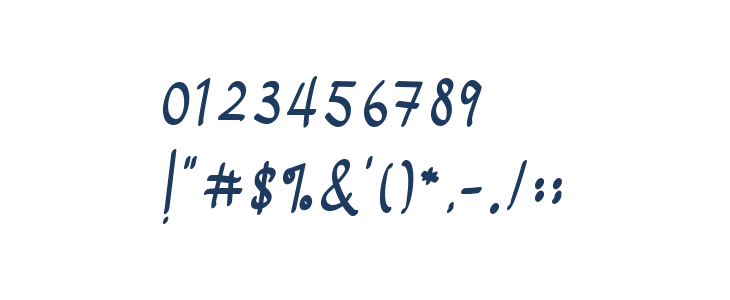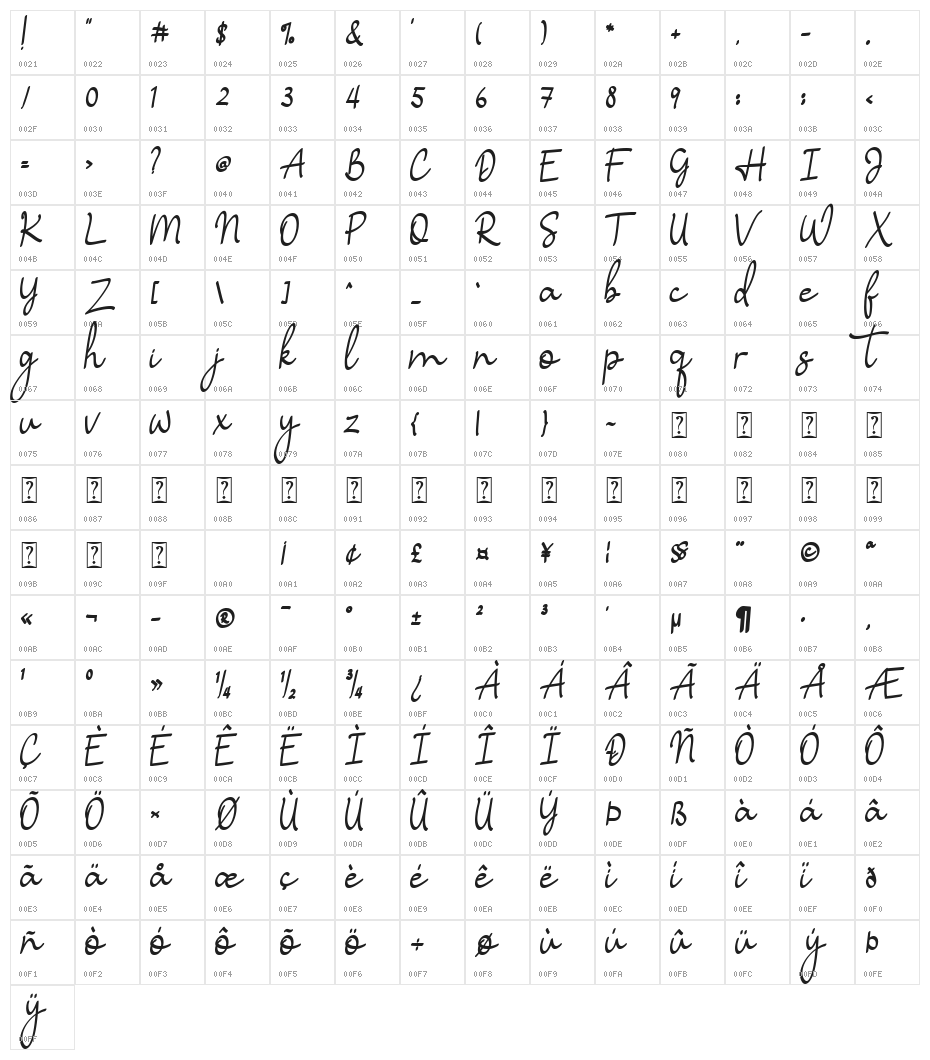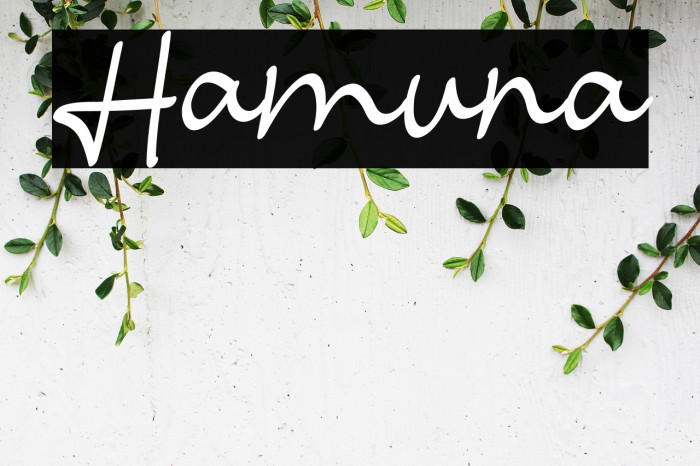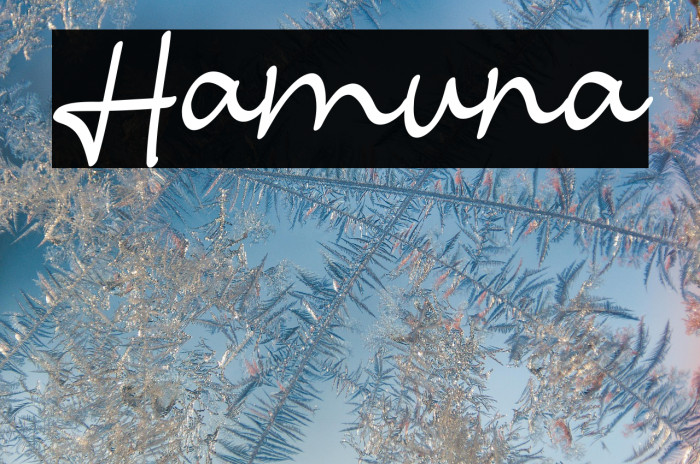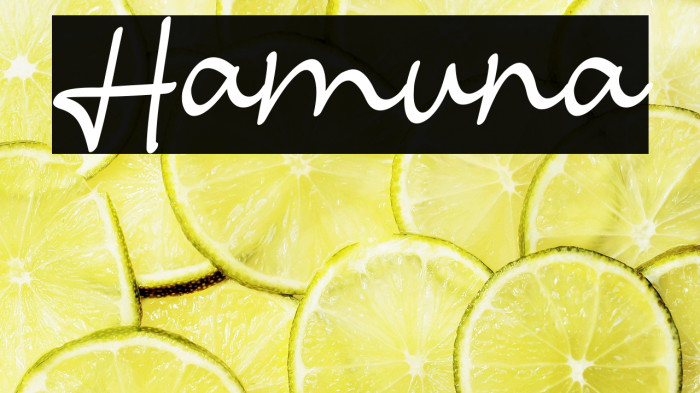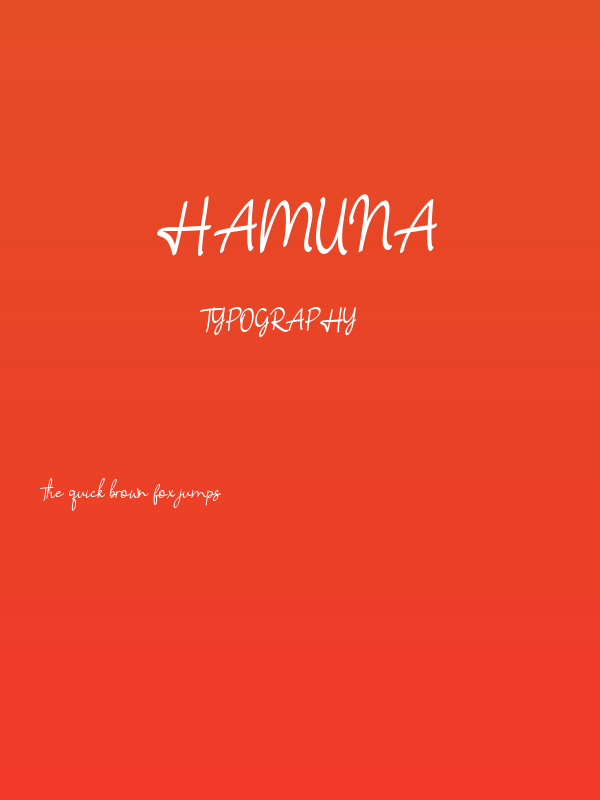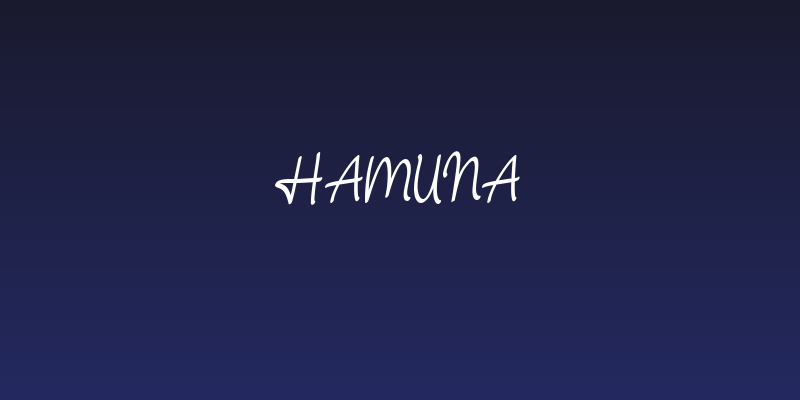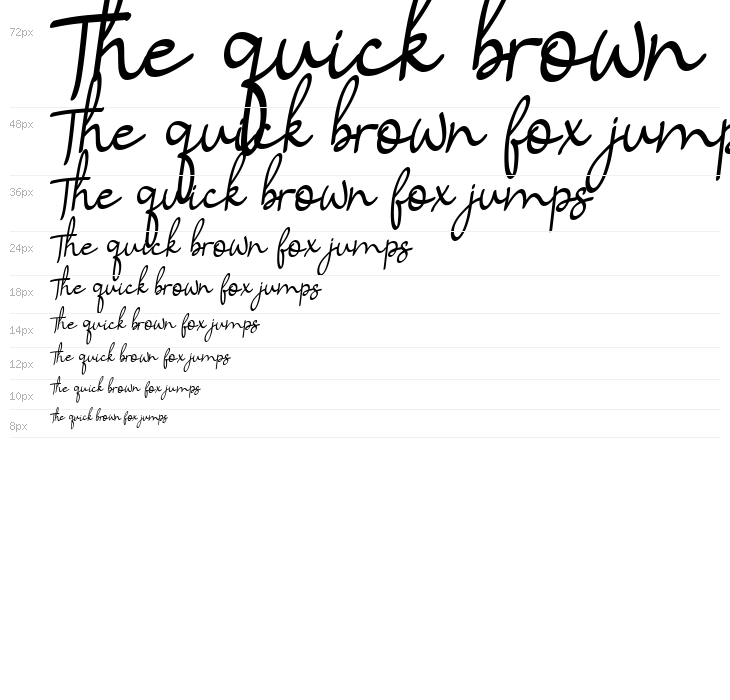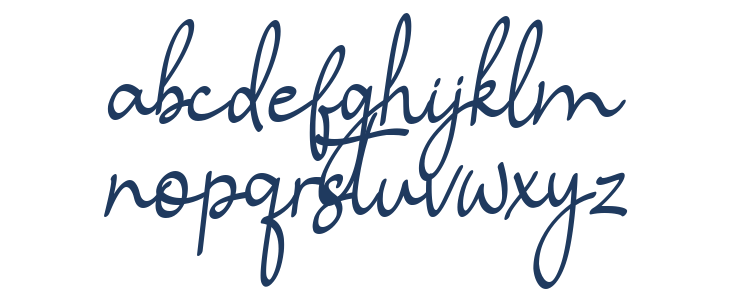
Hamuna Font
Hamuna Description
This font features a lively and fluid script style, characterized by its handwritten appearance. The letters are connected in a smooth, flowing manner, giving it a personal and informal touch. The uppercase letters maintain a consistent height, while the lowercase letters exhibit a slight slant, enhancing the dynamic feel. The numerals and special characters are crafted with the same fluidity, ensuring a cohesive look across all glyphs. The strokes are moderately thick, providing good readability without sacrificing the elegant, cursive style. This font is ideal for projects that require a personal, approachable, and artistic touch.